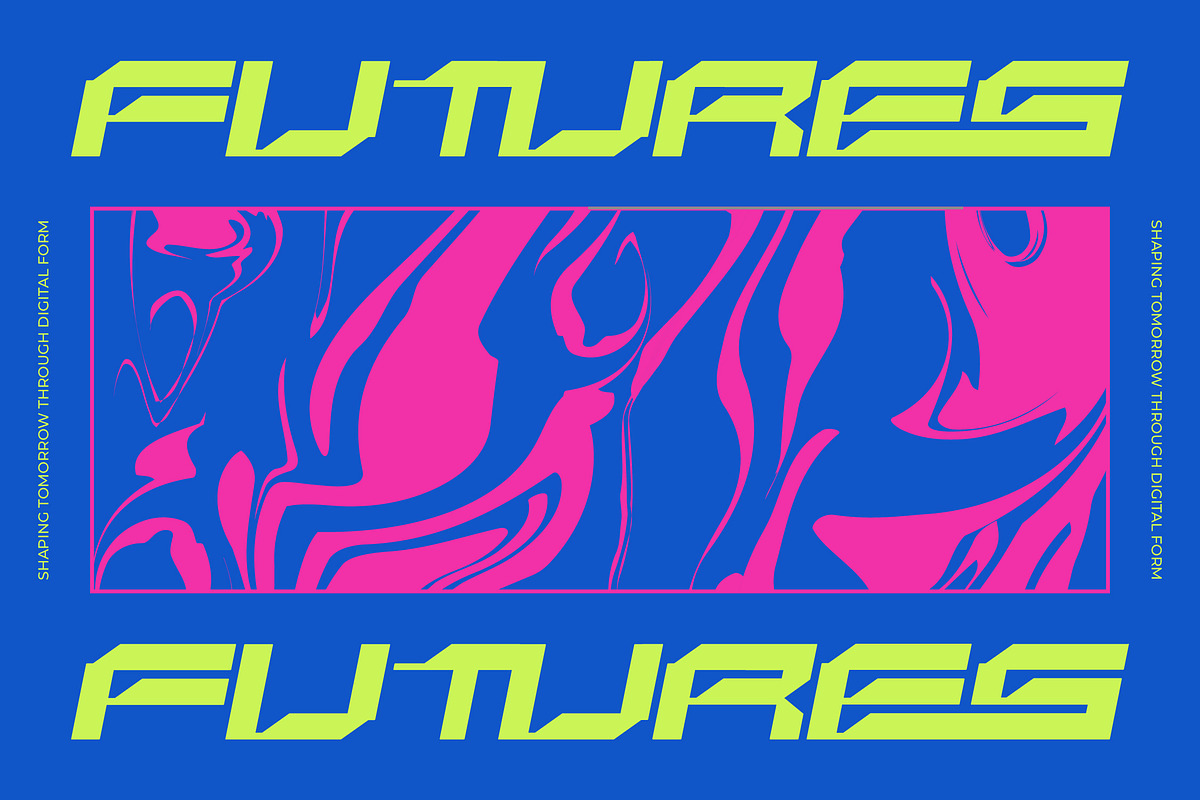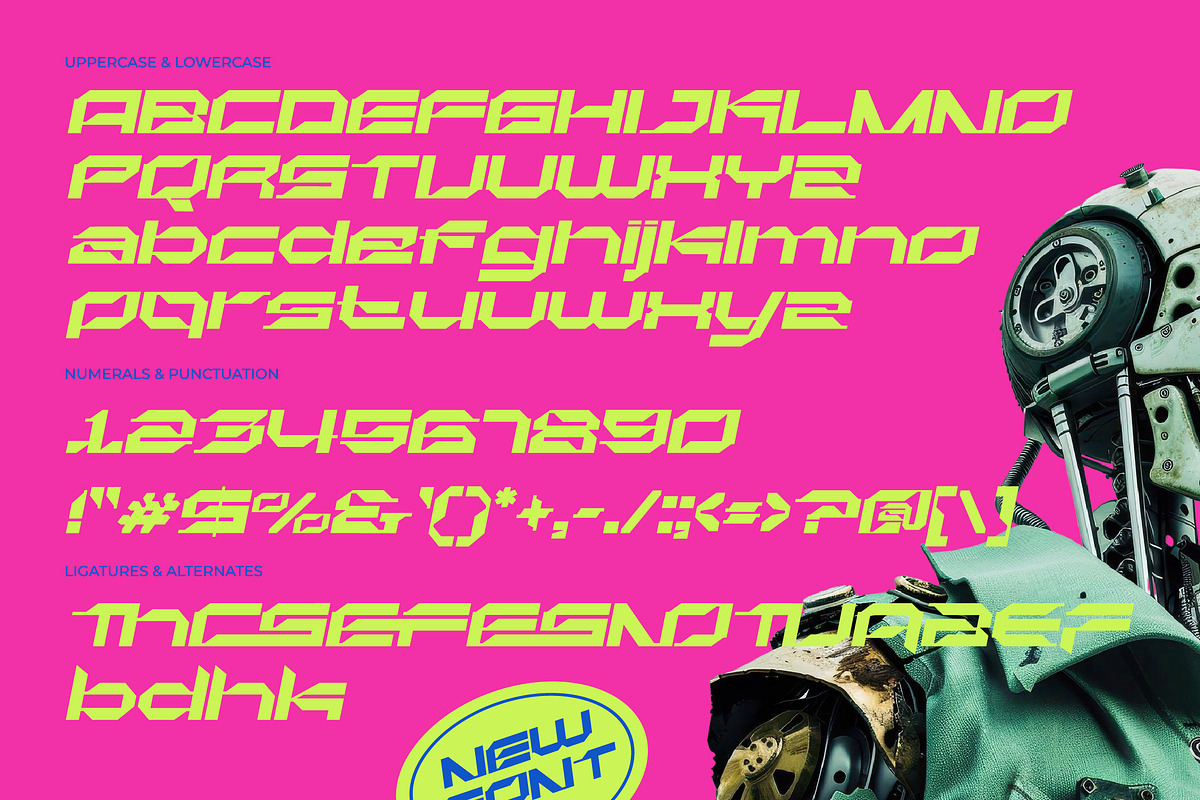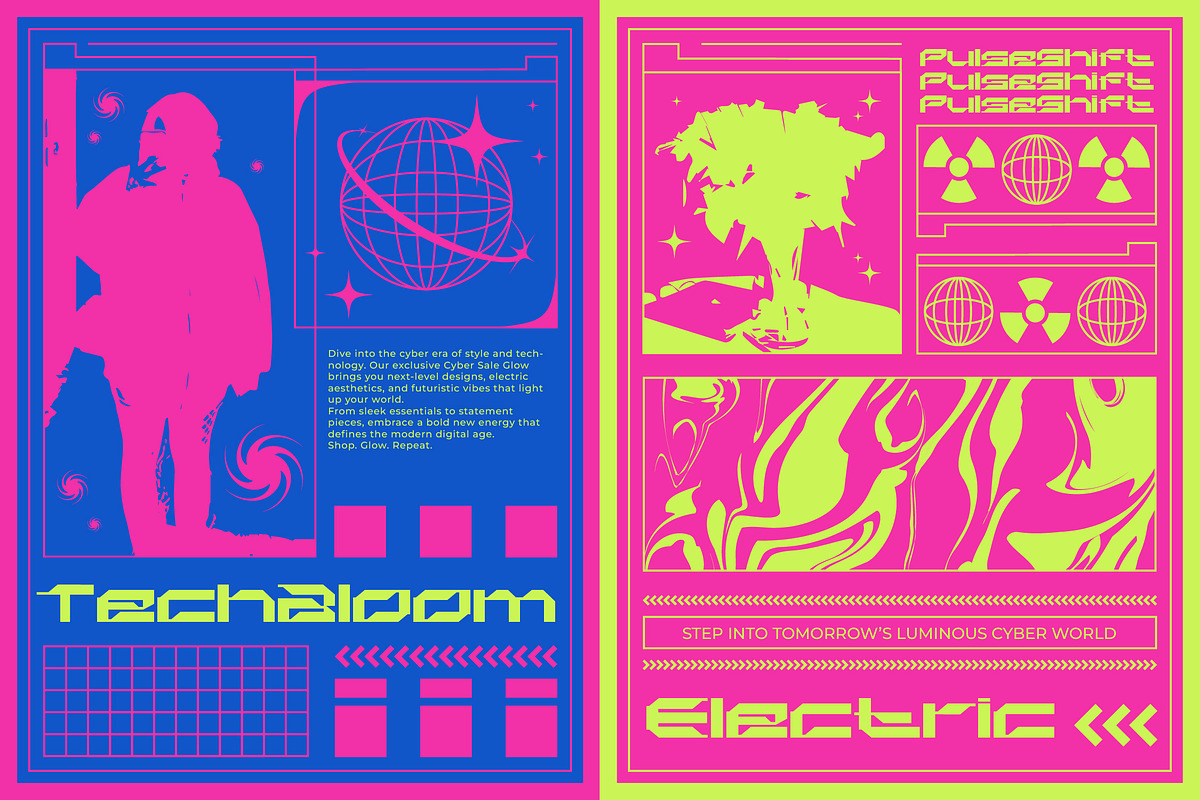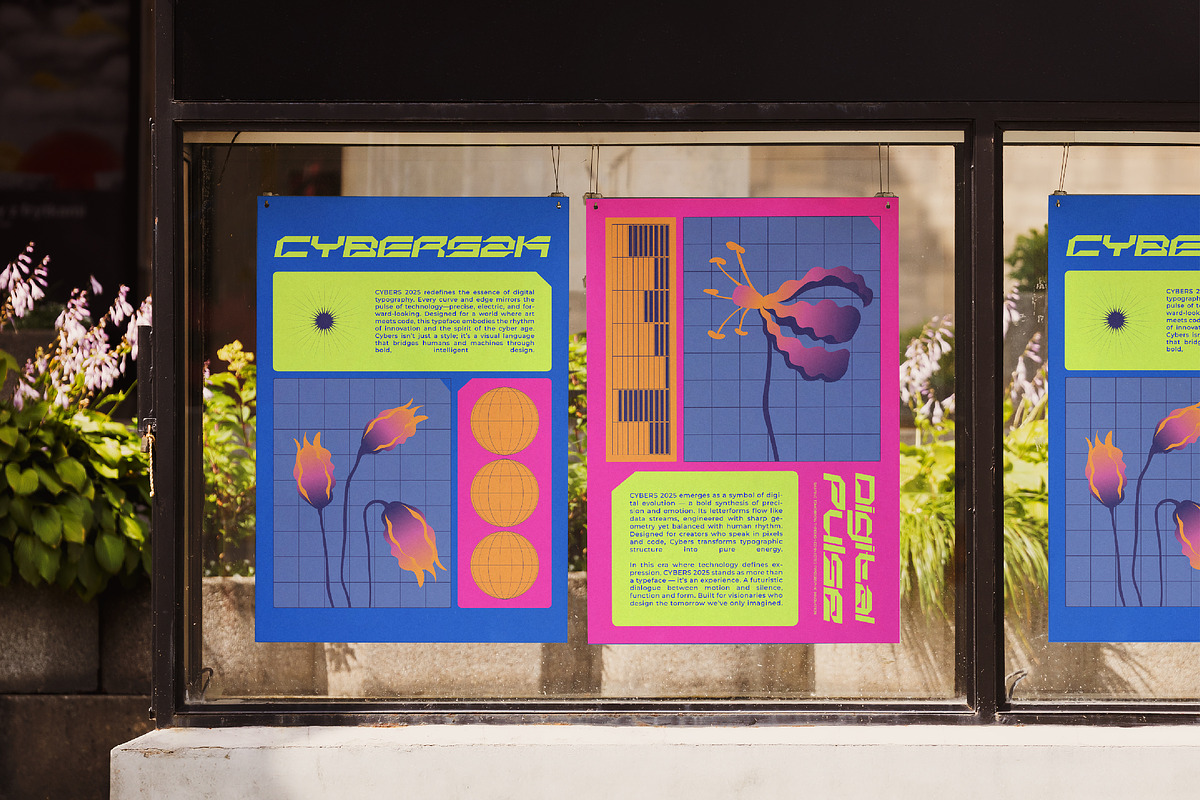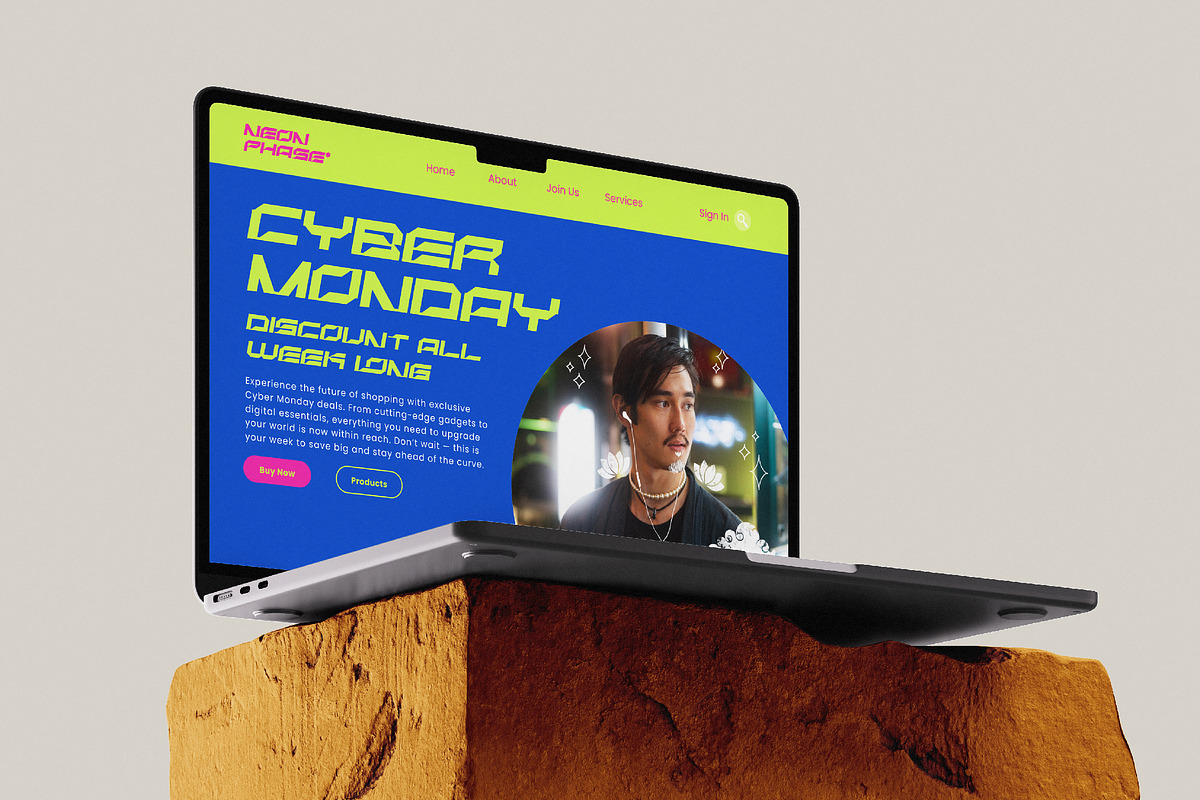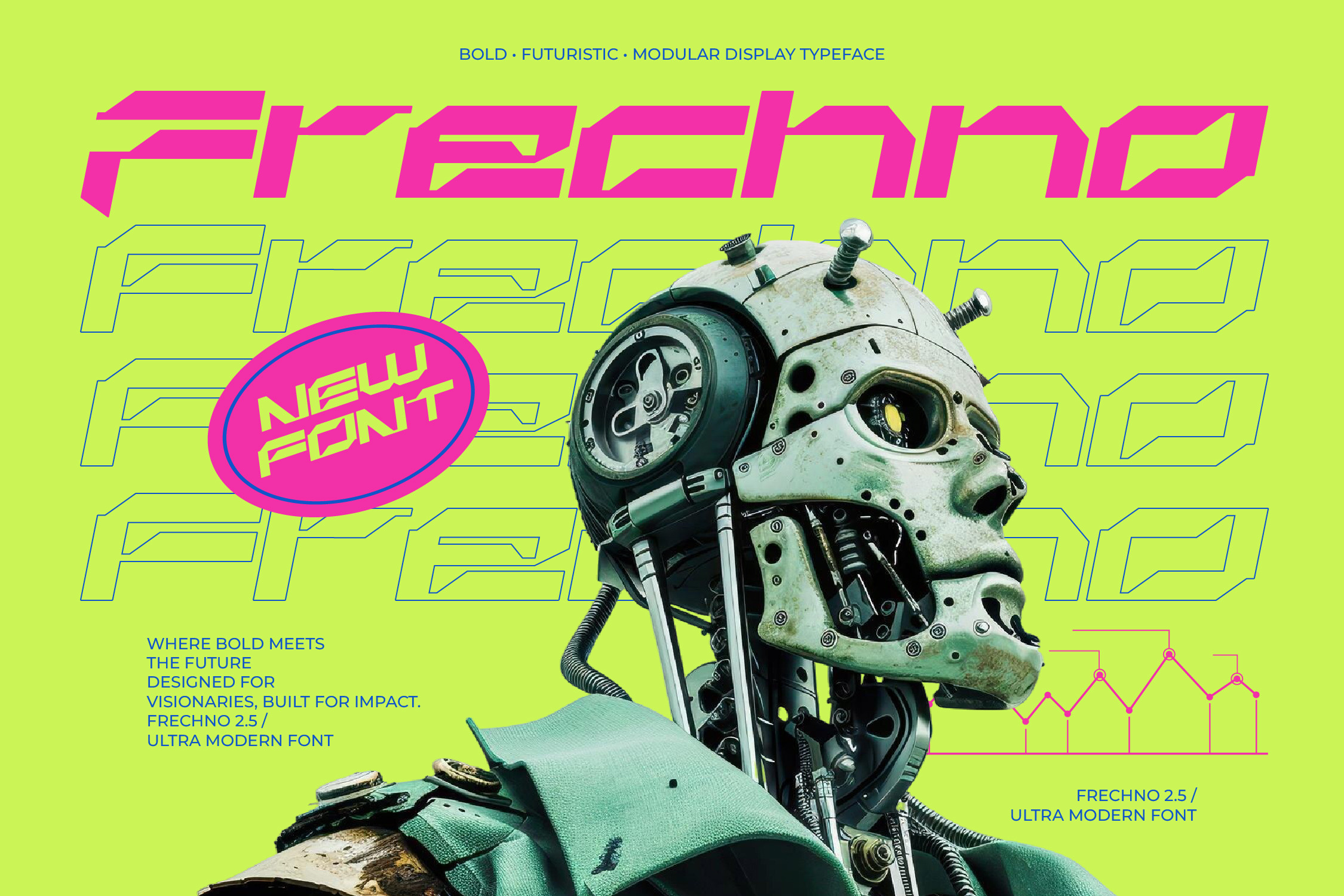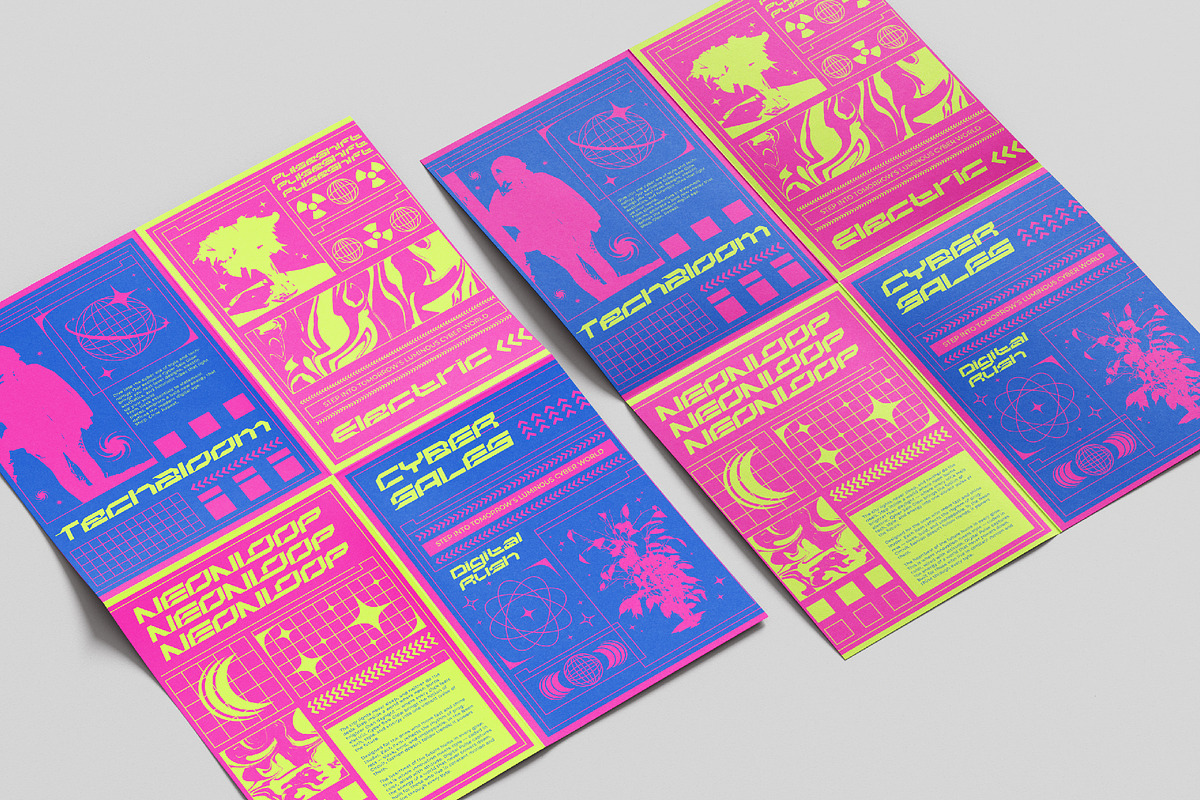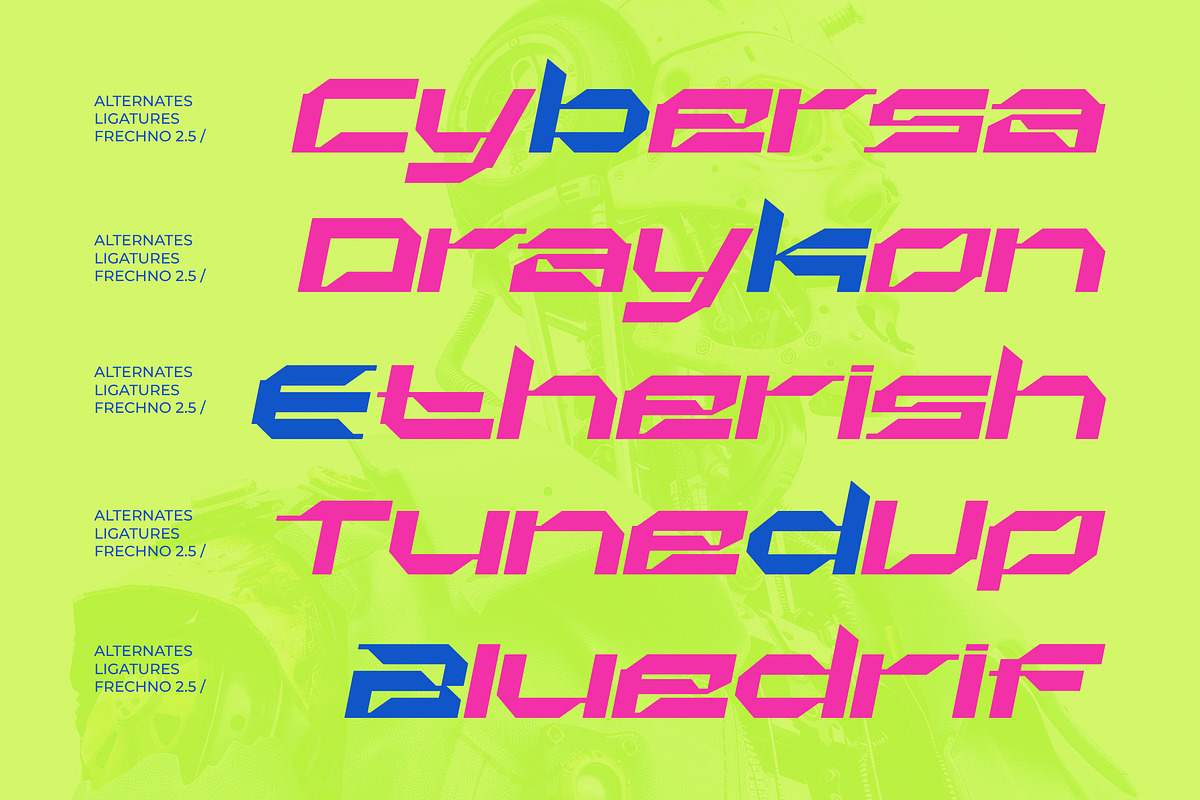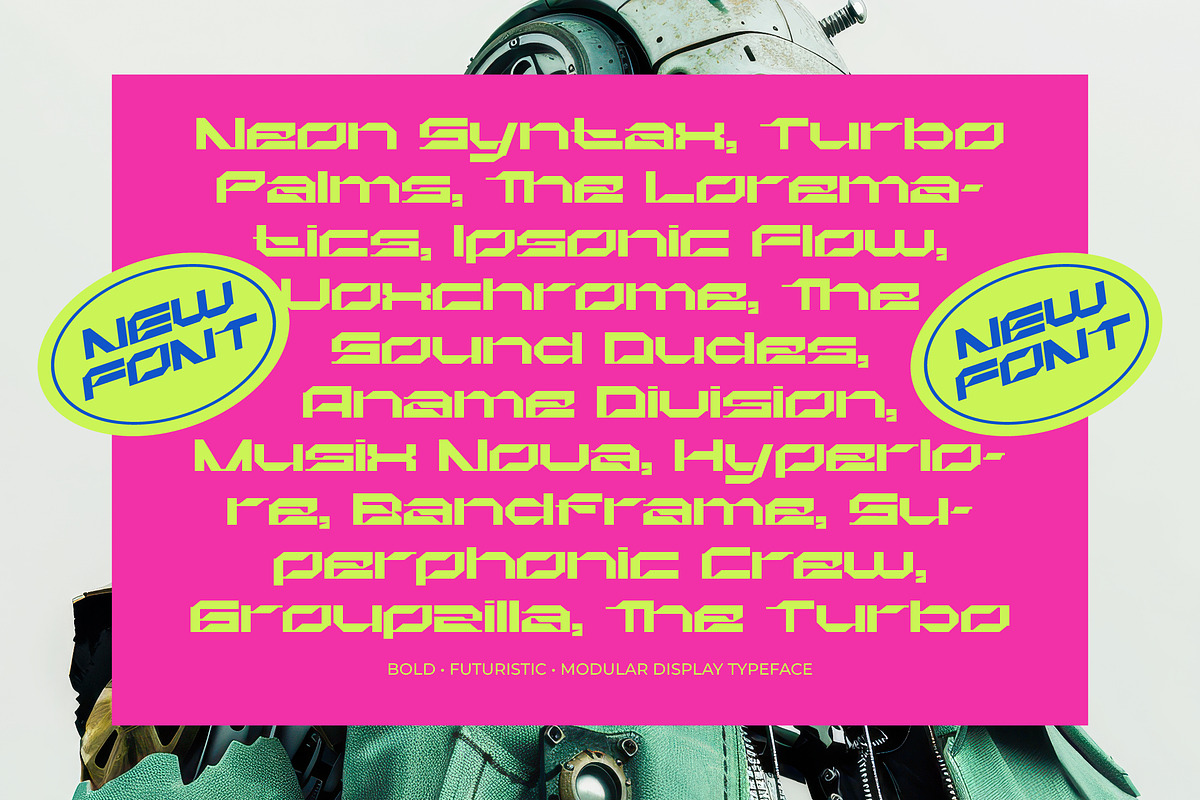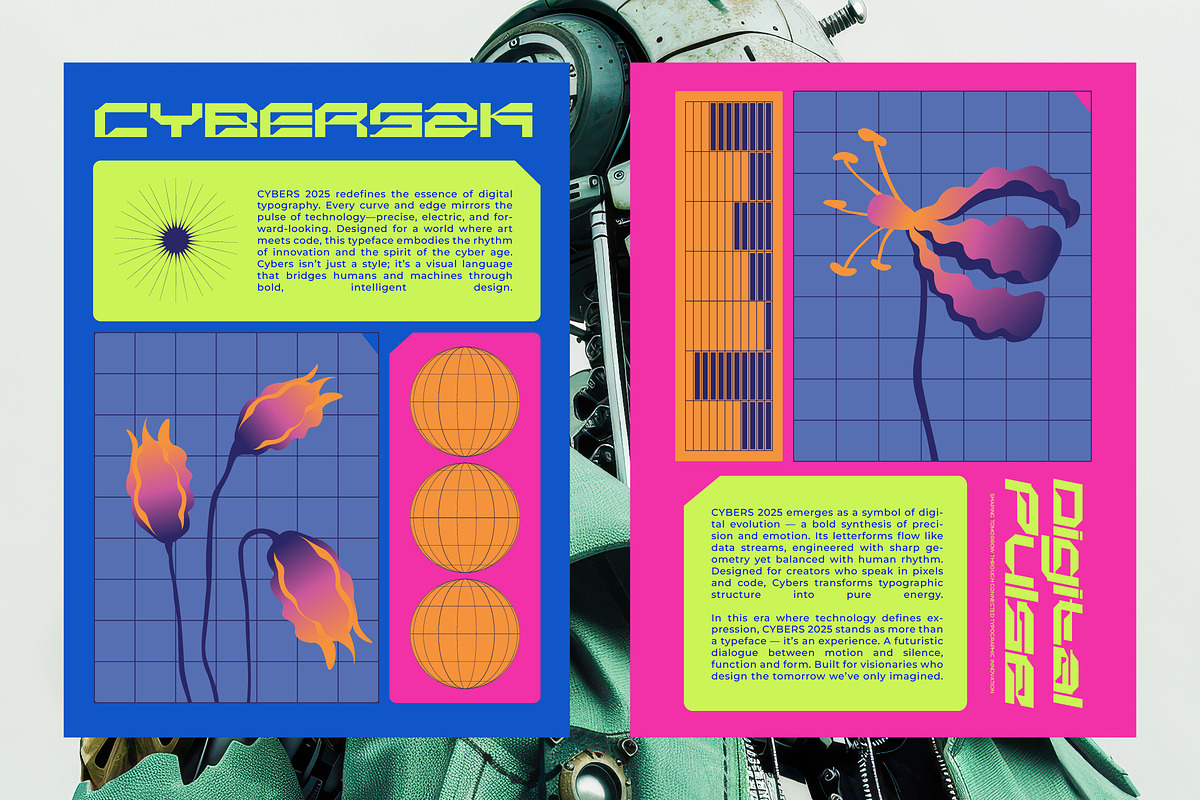
Frechno Bold Futuristic Display Font
Frechno font is a unique, modern geometric font with a modern, futuristic, bold, unique, elegant, modern, and geometric style. It is a bold futuristic display font perfect for branding projects, logos, social media posts, product packaging, labels, etc.